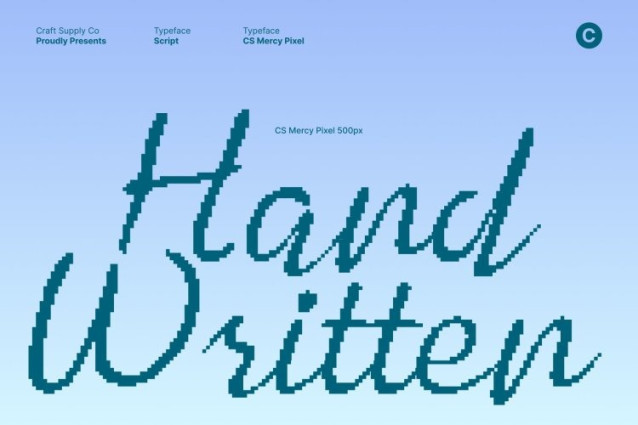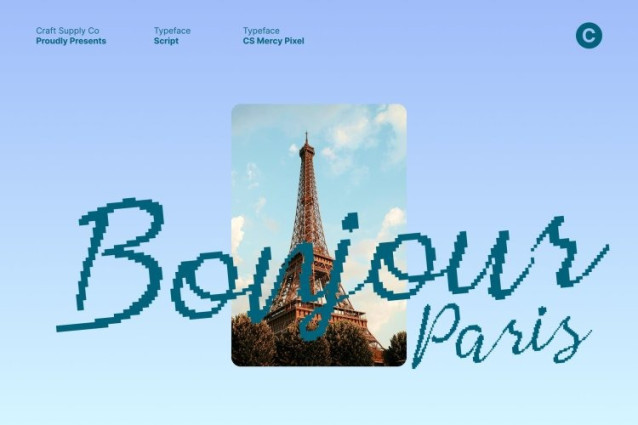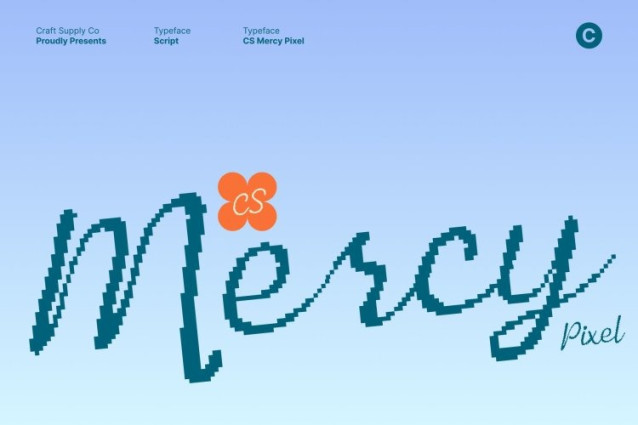
CS Mercy Pixel Font
CS Mercy Pixel Font This is a modern script font featuring smooth cursive strokes enhanced with delicate pixel-inspired detailing. Its flowing handwritten forms express elegance and sophistication, while the subtle digital texture adds a contemporary edge. The result is a font that feels timeless yet modern, perfect for both digital and print designs.
Captivating Elegance with Digital Refinement
Every curve of this font is crafted to highlight beauty and finesse. The sleek handwritten rhythm conveys romance and luxury, while pixel accents introduce quiet structure and visual interest. This balance creates a polished aesthetic that feels graceful without losing clarity or charm.
Perfect for Luxury, Events, and Creative Branding
Ideal for wedding invitations, fashion logos, packaging, social media graphics, and premium branding, this font elevates designs with warmth, refinement, and modern sophistication. Its elegant flow paired with digital character makes it suitable for high-end yet contemporary projects.
Versatile Script for Elegant and Lasting Impressions
Despite its decorative style, this font remains highly readable and adaptable. It works beautifully as a headline font, logo mark, or expressive accent, and pairs effortlessly with clean sans-serif or serif typefaces. Wherever it appears, it leaves a refined, memorable impression.